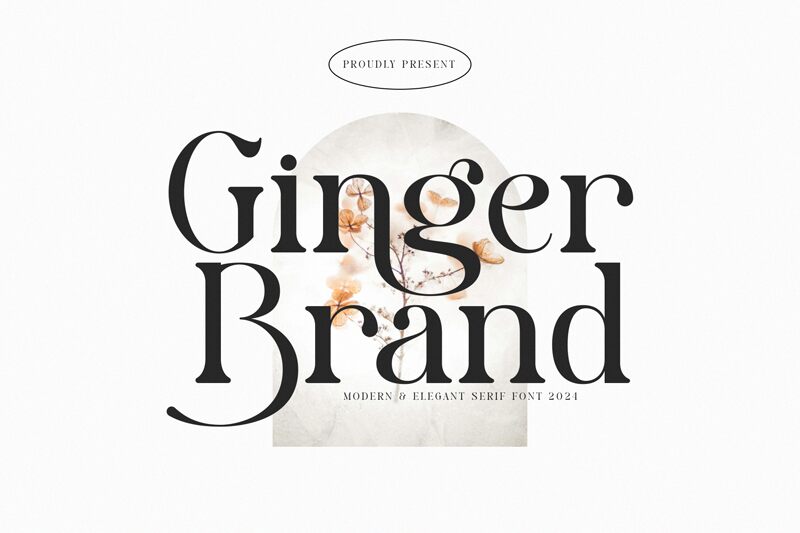
Ginger Brand font family by Muflieart combines elegant, sophisticated modern serif with subtle vintage influences. This 2 font styles family holds a chic and refined look for modern day designer’s requirements. It makes stylish, graceful, polished, and luxurious typography accessible in a free font family.
This font will come in handy for branding businesses, websites, or bloggers. It may also be used in a diverse range of food packaging, posters, digital print. It goes excellently with editorial work where style and aesthetics matter the most. Examples include magazines, books, covers, posters, and catalogs.